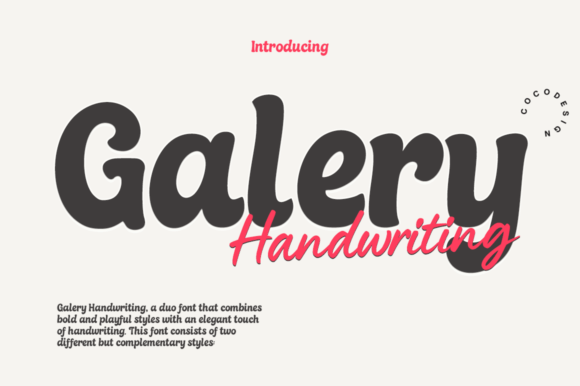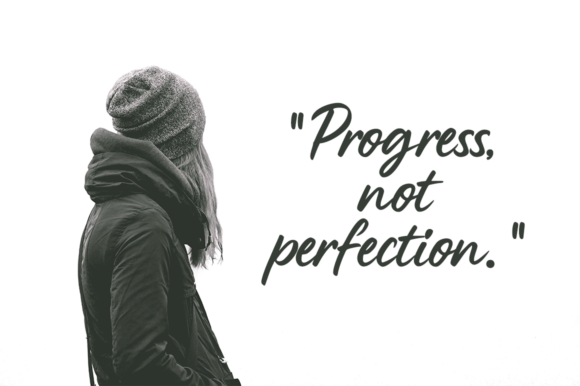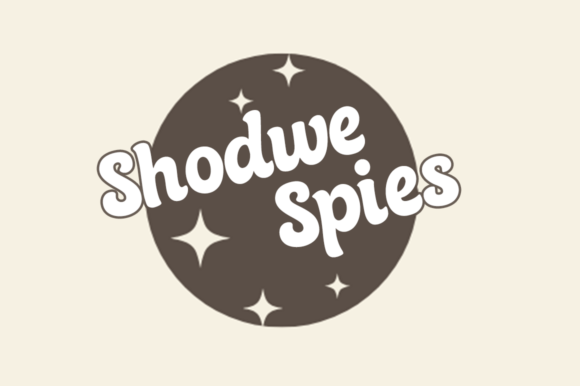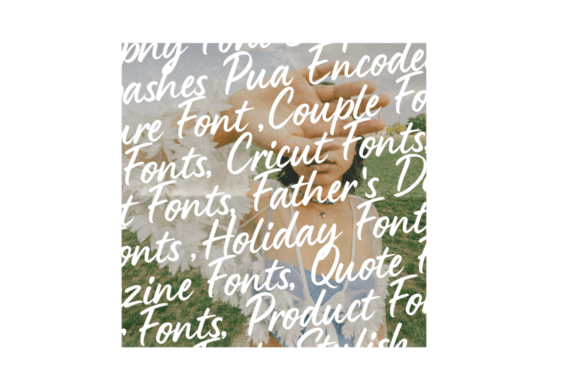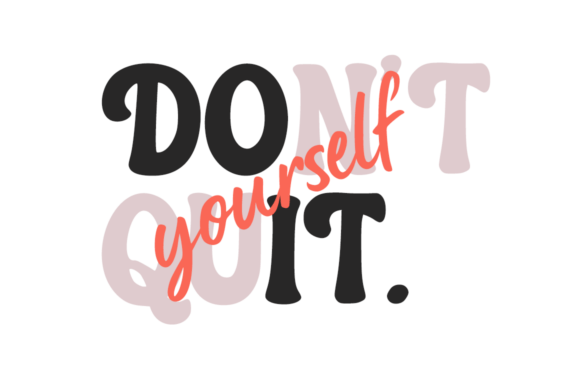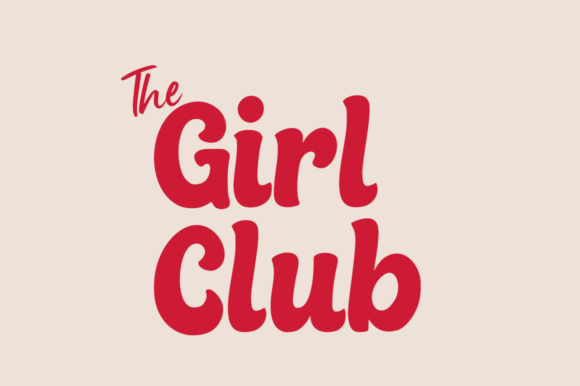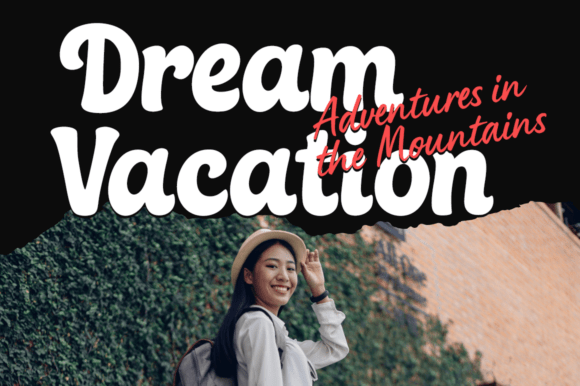
The Perfect Pair for Your Next Design Project
Have you ever been stuck trying to convey the perfect balance of modernity and friendliness in your design? You’re not alone. As designers, we often find ourselves torn between the desire for a bold, eye-catching aesthetic and a more personal, emotive touch. This is where the Galery Handwriting Font comes in – a versatile duo that effortlessly combines the two.
With its robust, curvaceous style and elegant handwritten touch, the Galery Handwriting Font is the ultimate solution for designers looking to create visually appealing and readable contrast. Whether you’re working on a logo, invitation, or social media post, this font duo is sure to bring your design to life. Its unique blend of strength and gentleness makes it a valuable asset for any creative project, and we can’t wait to explore its endless possibilities with you.
Galery Handwriting Font Key Features
- Unique Handwritten Style: Galery Handwriting Font offers a distinctive, elegant handwritten style perfect for creative projects and designs.
- Multi-Language Support: This font supports various languages, making it a versatile choice for international designs and publications.
- Character Set: Includes a comprehensive set of characters, including uppercase and lowercase letters, numbers, punctuation marks, and special characters.
- Font Weight and Style: Offers a range of font weights, from Light to Bold, and styles, including Regular, Italic, and Bold Italic, providing flexibility for various design applications.
Galery Handwriting Font Review
Overall, I’m impressed with the unique charm of the Galery Handwriting Font. ✨ Its hand-drawn style adds a personal touch to any design, making it perfect for creative projects that require a touch of elegance and sophistication. ✨ The font is highly customizable, allowing users to adjust the size, color, and even add custom effects to make it truly stand out.
One of the standout features of the Galery Handwriting Font is its versatility. It’s suitable for a wide range of designs, from wedding invitations and greeting cards to menus and posters. ✨ Additionally, the font is available in various styles, including cursive and script, giving users more options to choose from.
- ⚠️ Limited font sizes: While the font is highly customizable, there are limitations to the font sizes available, which may not be ideal for certain design projects.
- ⚠️ Compatibility issues: Some users have reported compatibility issues with certain software and operating systems, which may affect the font’s performance.
Overall, the Galery Handwriting Font is a great addition to any designer’s toolkit. While it has some limitations, its unique charm and versatility make it a valuable asset for creative projects.
Use Galery Handwriting Font for creative and eye-catching titles, headings, and quotes.
It’s ideal for wedding invitations, event signage, and marketing materials.